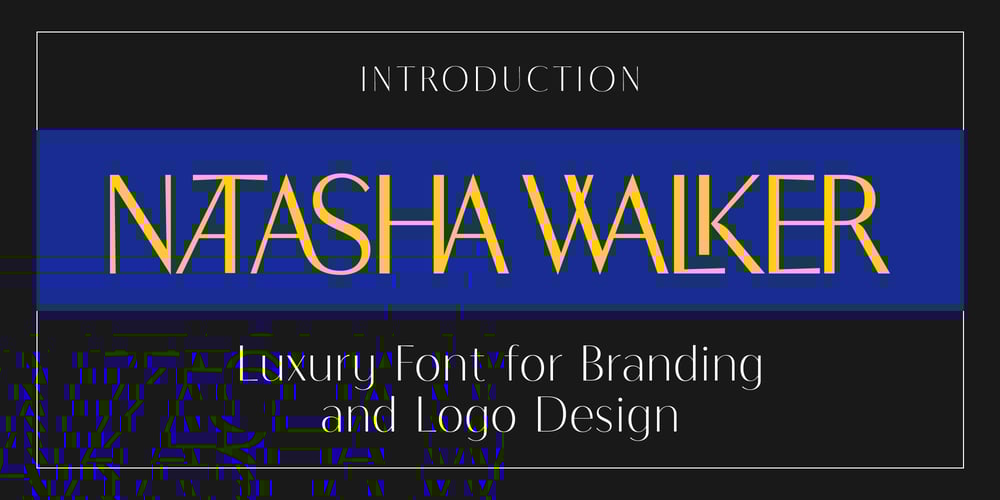
Natasha Walker Font Family was designed by Said Ismail and published by Hadiftype. Natasha Walker contains 2 styles and family package options. Natasha Walker is Thin sans serif that gives it a high class appeal. Comes in 2 weights, Regular and Bold. The inspiration for this typeface comes from the Art Deco era, feels modern and contemporary. Thick and thin branches are done daintily. Giving this entire font a highly polished look. Perfectly in luxury designs. Also contains 150 discretionary ligatures uppercase characters, giving you a variety of layout options. It’s perfect for fashion and lifestyle themes and even for branding purposes.